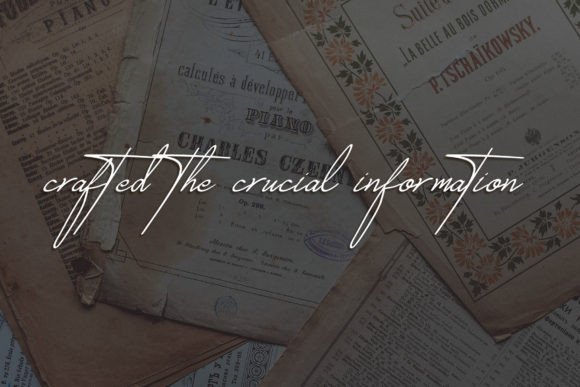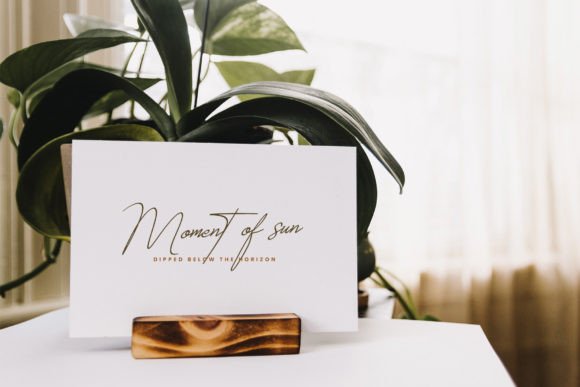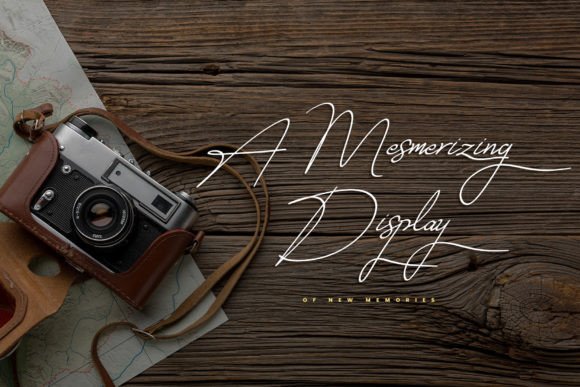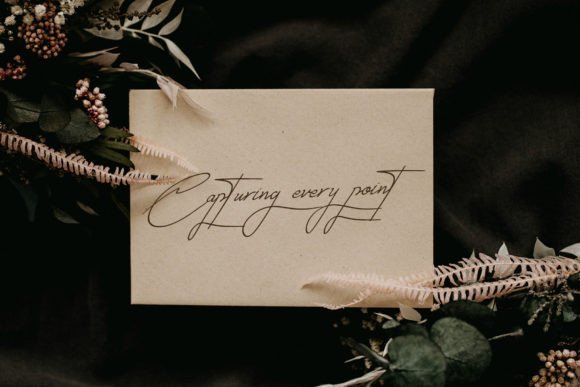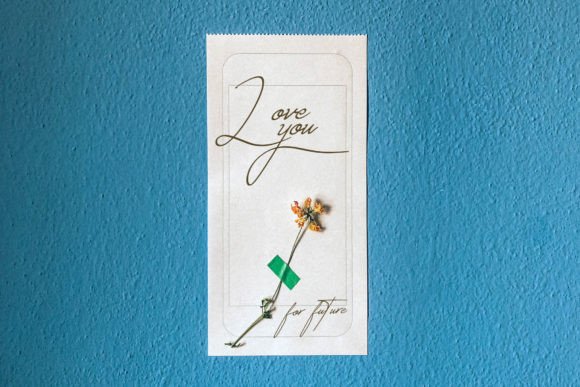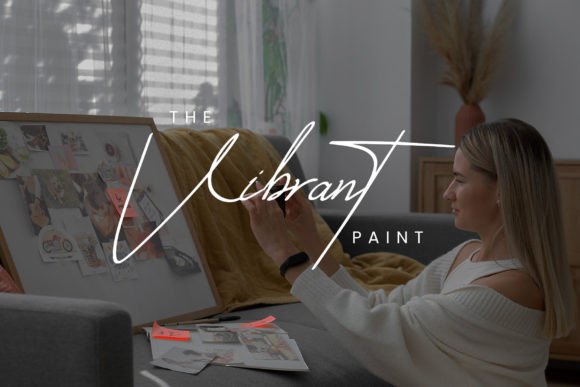
Introduction to Mikaila Signature Font Font
Fonts play a crucial role in design, and the Mikaila Signature Font font is a typeface that brings both character and versatility to any project. Whether you’re working on a branding project, a website, or a print design, the Mikaila Signature Font font offers a unique style that can elevate your work.
Mikaila Signature is an exquisite and aesthetic font that epitomizes elegance and grace.
Inspired by the beauty of a personalized signature, each letter in Mikaila Signature flows effortlessly with a delicate and sophisticated touch With its refined strokes and precise curves, this typeface exudes a sense of timeless allure, making it ideal for luxury branding, high-end invitations, and sophisticated editorial layouts.
Key Features of Mikaila Signature Font Font
Why Choose Mikaila Signature Font Font?
The Mikaila Signature Font font is more than just a typeface – it’s a design tool that helps you communicate your message with style and clarity. Its unique character set and versatile design make it suitable for a wide range of applications, from elegant invitations to bold headlines.
With its carefully crafted letterforms and balanced proportions, the Mikaila Signature Font font ensures readability and visual appeal across all mediums.
What makes Mikaila Signature Font font special?
The Mikaila Signature Font font stands out with its unique design, exceptional readability, and versatility across various design applications.